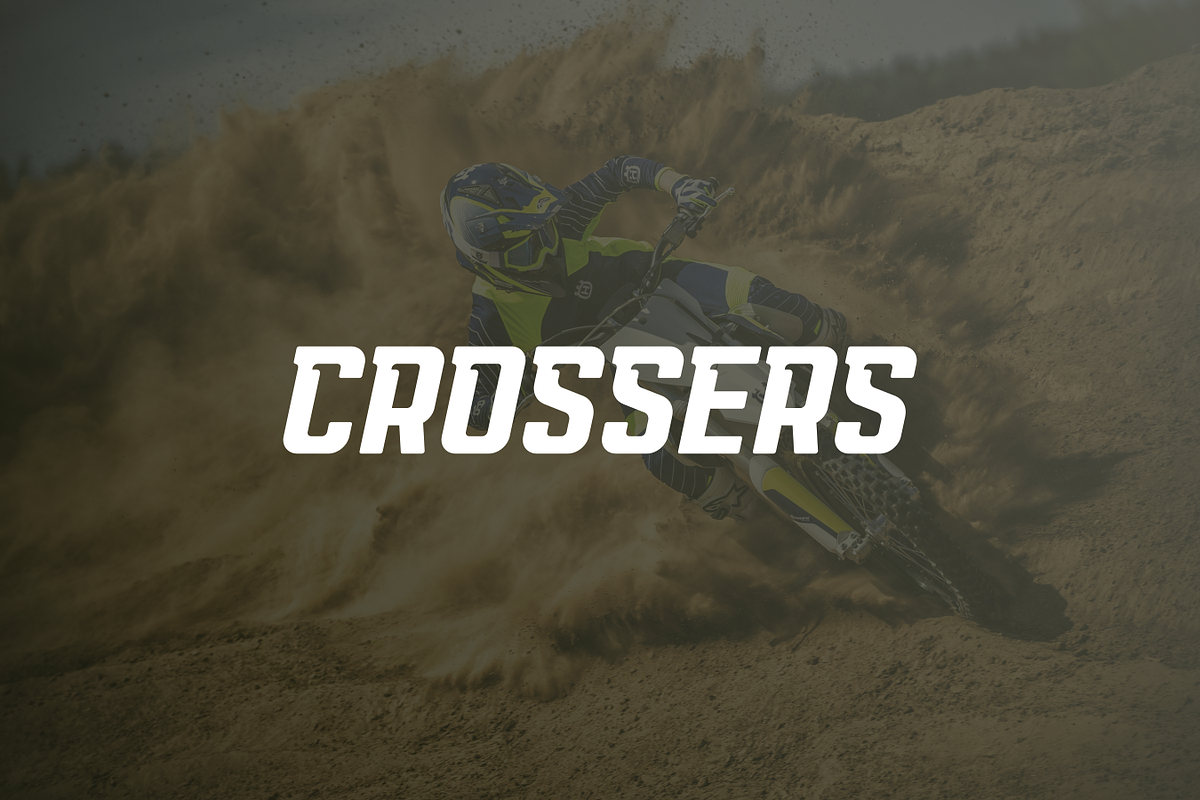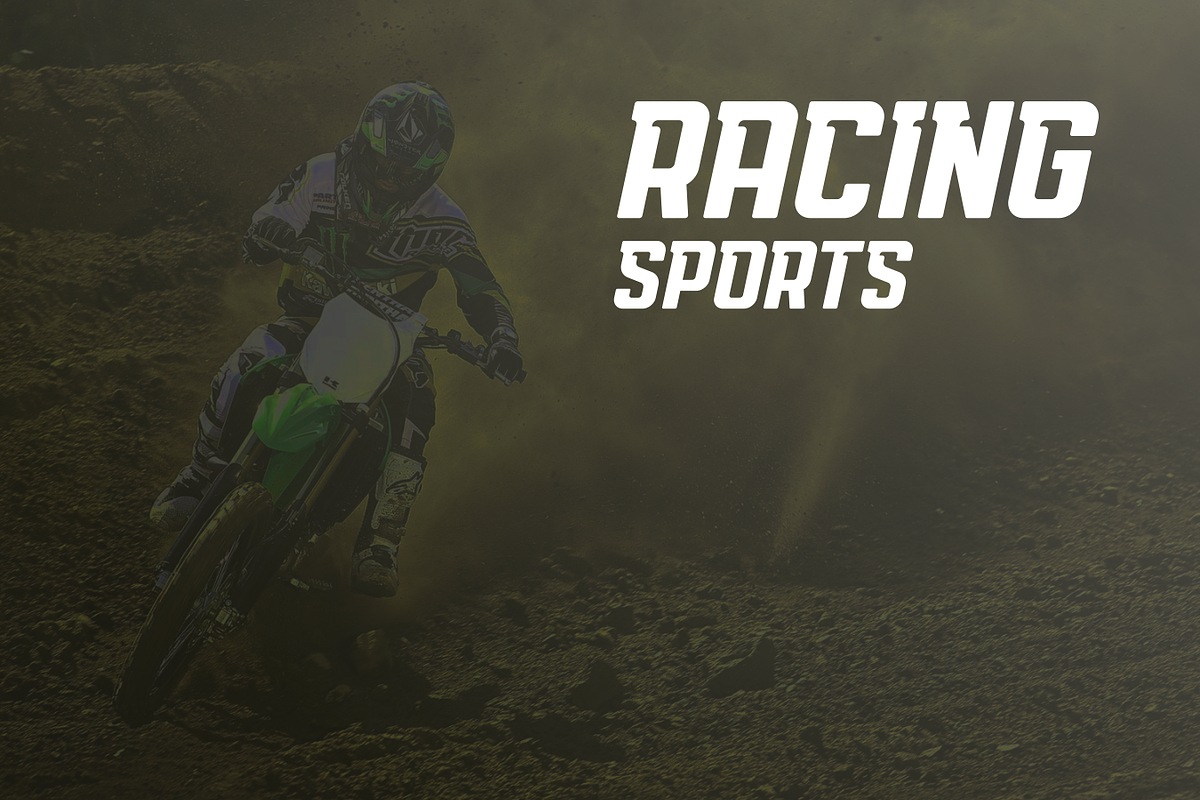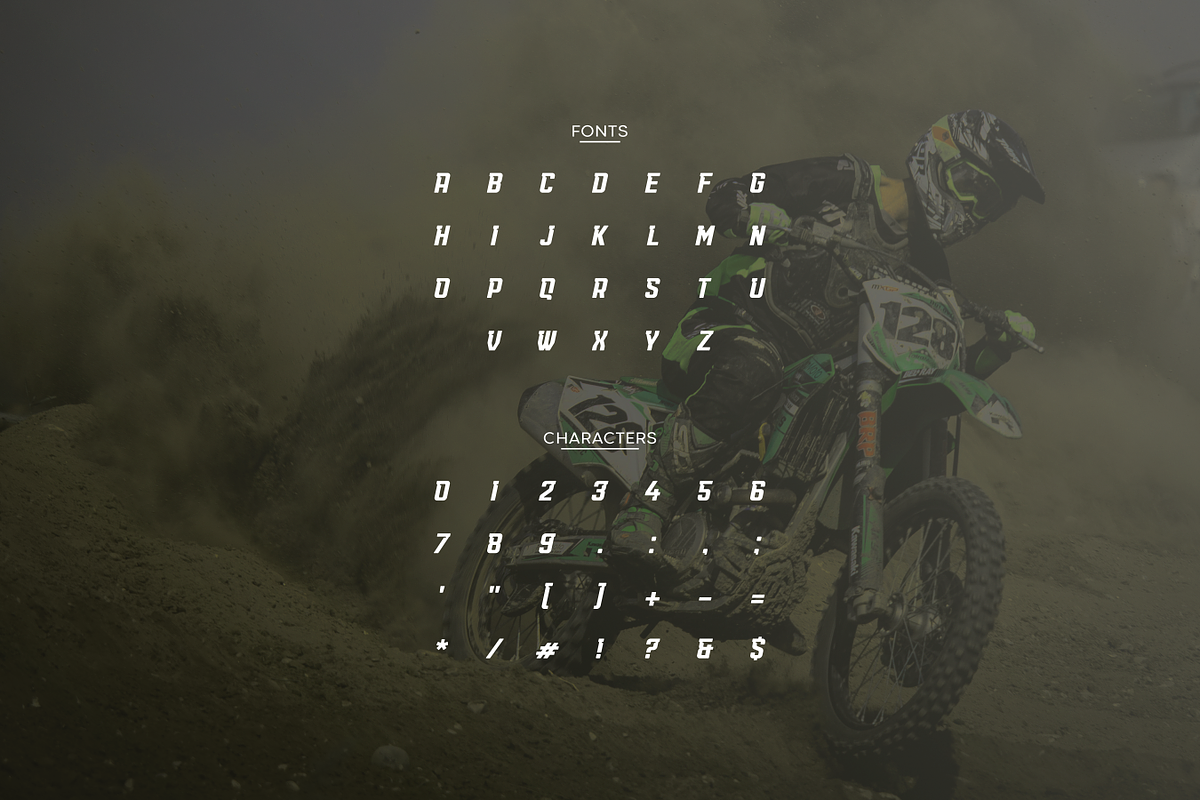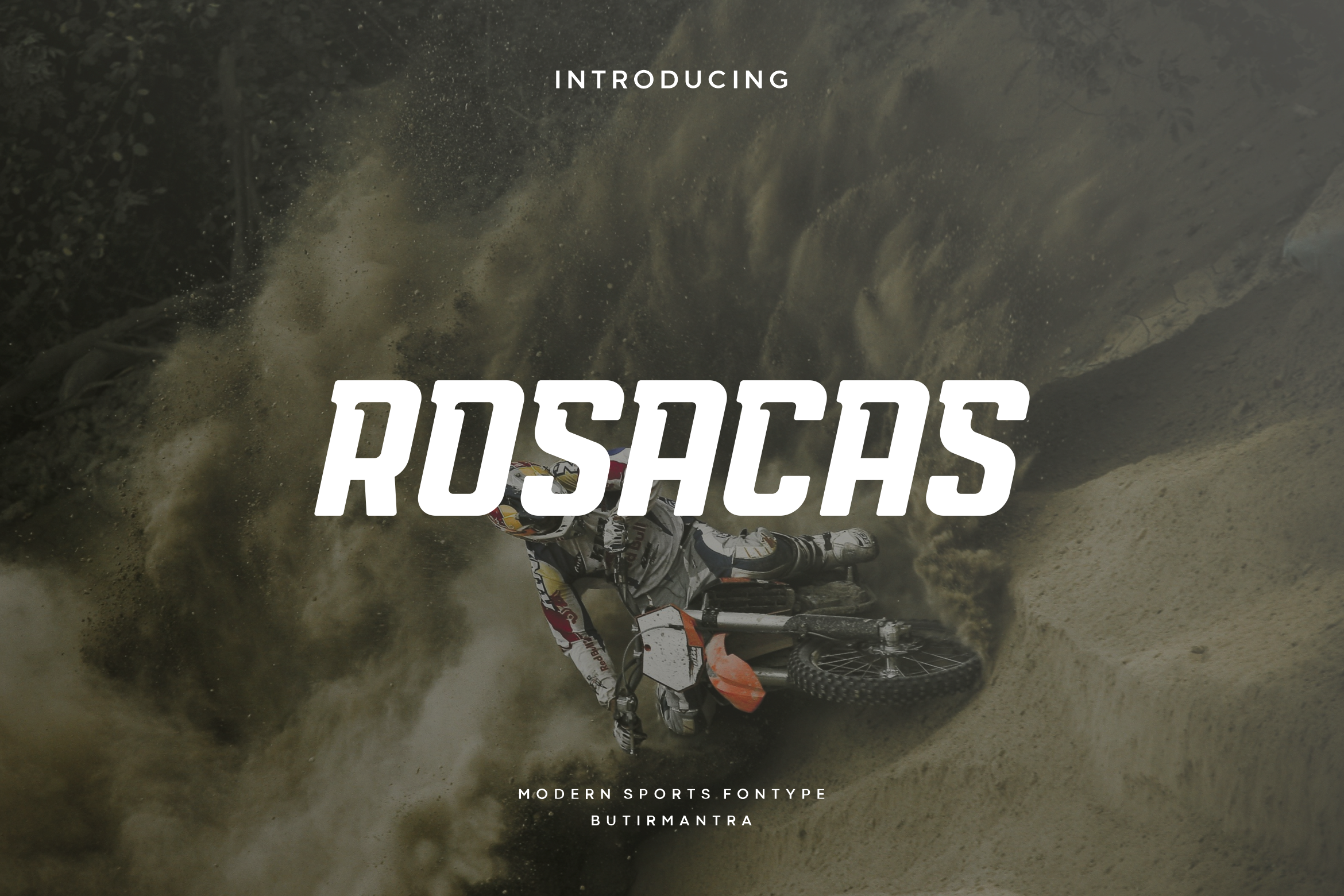
Rosacas - Modern Sport Typeface
Rosacas is an awesome sports font, with a wide italic font style, accented with small modern cutouts at every corner giving it a dynamic slant. Ideal for titles, sports designs, logos, games, automotive, monograms or other modern dynamic text. Rosacas is better than other sports fonts, comes with a very masculine feel and is sharp giving more of a power and speed effect. Designed as a powerful and dynamic font with slightly different font styles, take a look and grab it right away for a different design experience.